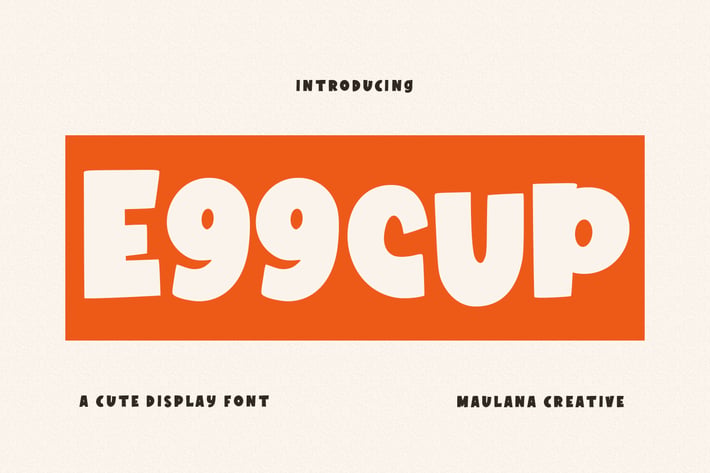
Eggcup Cute Display Font
Eggcup is a fancyfun display font. With bold stroke, fun character with a bit of ligatures and alternates. To give you an extra creative work. Eggcup font support multilingual more than 100+ language. This font is good for logo design, Social media, Movie Titles, Books Titles, a short text even a long text letter and good for your secondary text font with sans or serif. Make a stunning work with Eggcup font.